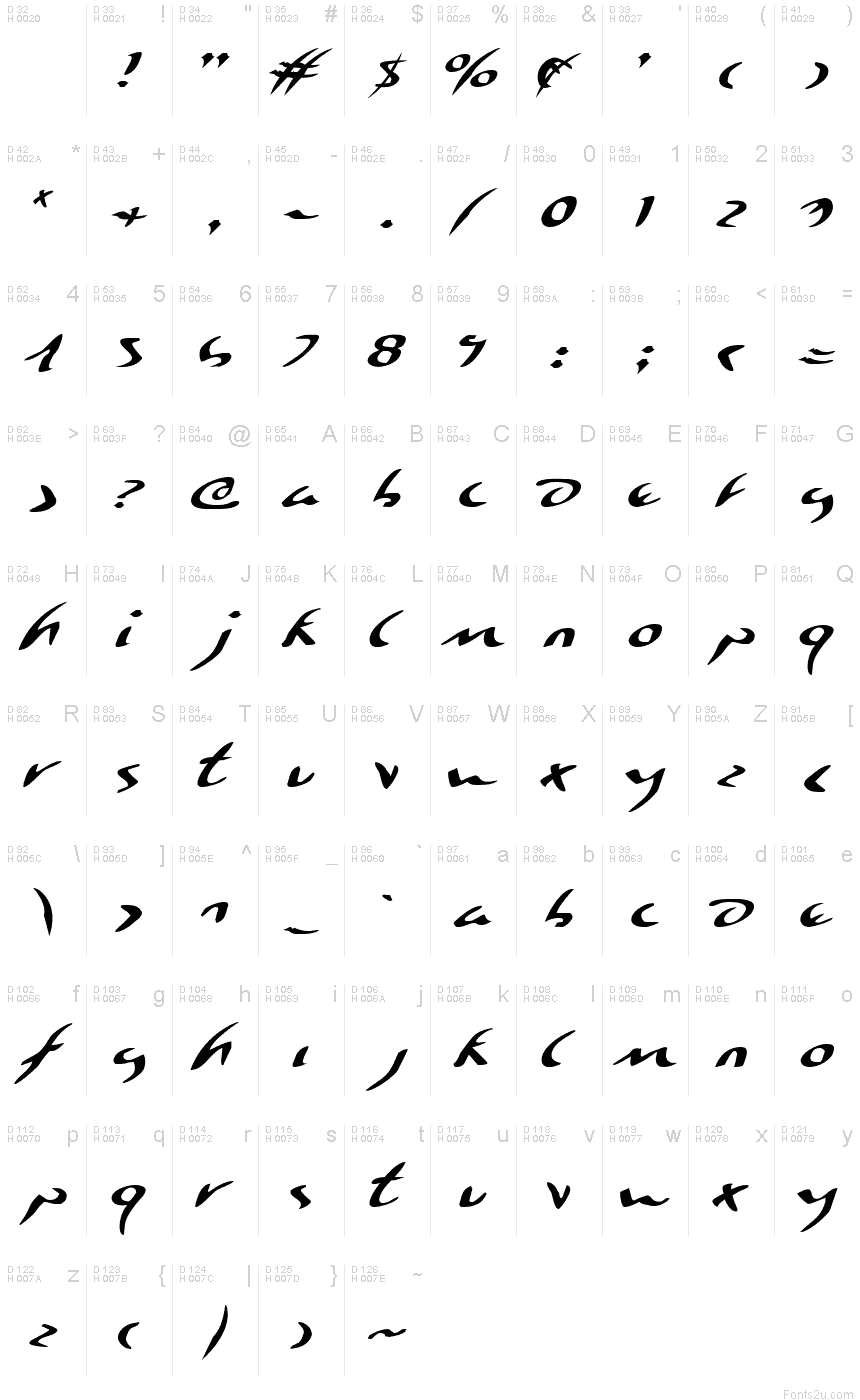
Eagleclaw Expanded Italic by Daniel Zadorozny of Iconian Fonts is a free brush script with broad, sharply slanted letterforms. Its sweeping strokes taper into hooked points, giving the writing a fast, claw-like silhouette with strong changes in stroke width and dense pools of ink through the curves.
Designers working in action sports and hard-edged entertainment will find it well suited to event posters and game graphics. It can also lend speed and aggression to motorcycle branding or music merchandise. Its clearest market is youth culture drawn to speed and rebellion.
Eagleclaw Expanded Italic